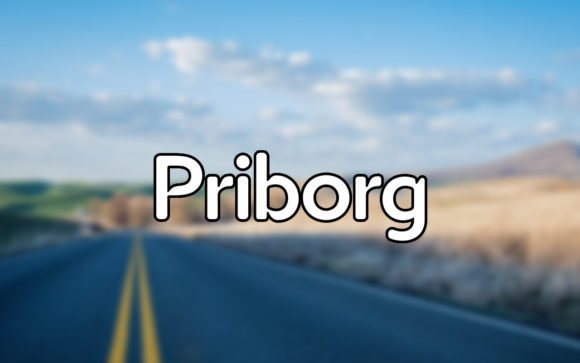
Priborg, Modern Serif Font for Packaging & Editorials
Priborg is a minimalist sans‑serif font that pairs clarity with modern simplicity. Its well‑balanced character shapes and clean lines make it ideal for versatile design use, whether for web graphics, print layouts, or merchandise. Because it’s easy to read and stylistically neutral, it fits a wide variety of creative projects.
- Clean, neutral design — works across many styles and projects without clashing with graphics or branding colors
- Highly readable — great for both display text (headings, logos) and body text (print, web layouts)
- Flexible — suitable for digital media, print, merchandise, and craft‑based projects
| Feature | Priborg | Generic Sans‑Serif Font A | Generic Sans‑Serif Font B |
| Style | Modern, clean, neutral sans‑serif | Neutral sans‑serif (standard weight) | Geometric sans‑serif or decorative sans‑serif |
| Best For | Branding, web graphics, POD, print & digital design | Body text, simple layouts, minimal branding | Headings, bold display text, creative logos |
| Readability & Flexibility | High — good for display or body text | Medium — basic sans‑serif readability | Medium — may be too stylized for body text |
| Versatility | Very high — digital, print, POD, crafts, web | Medium — primarily text and minimal design use | Lower — best for specific display or decorative use |